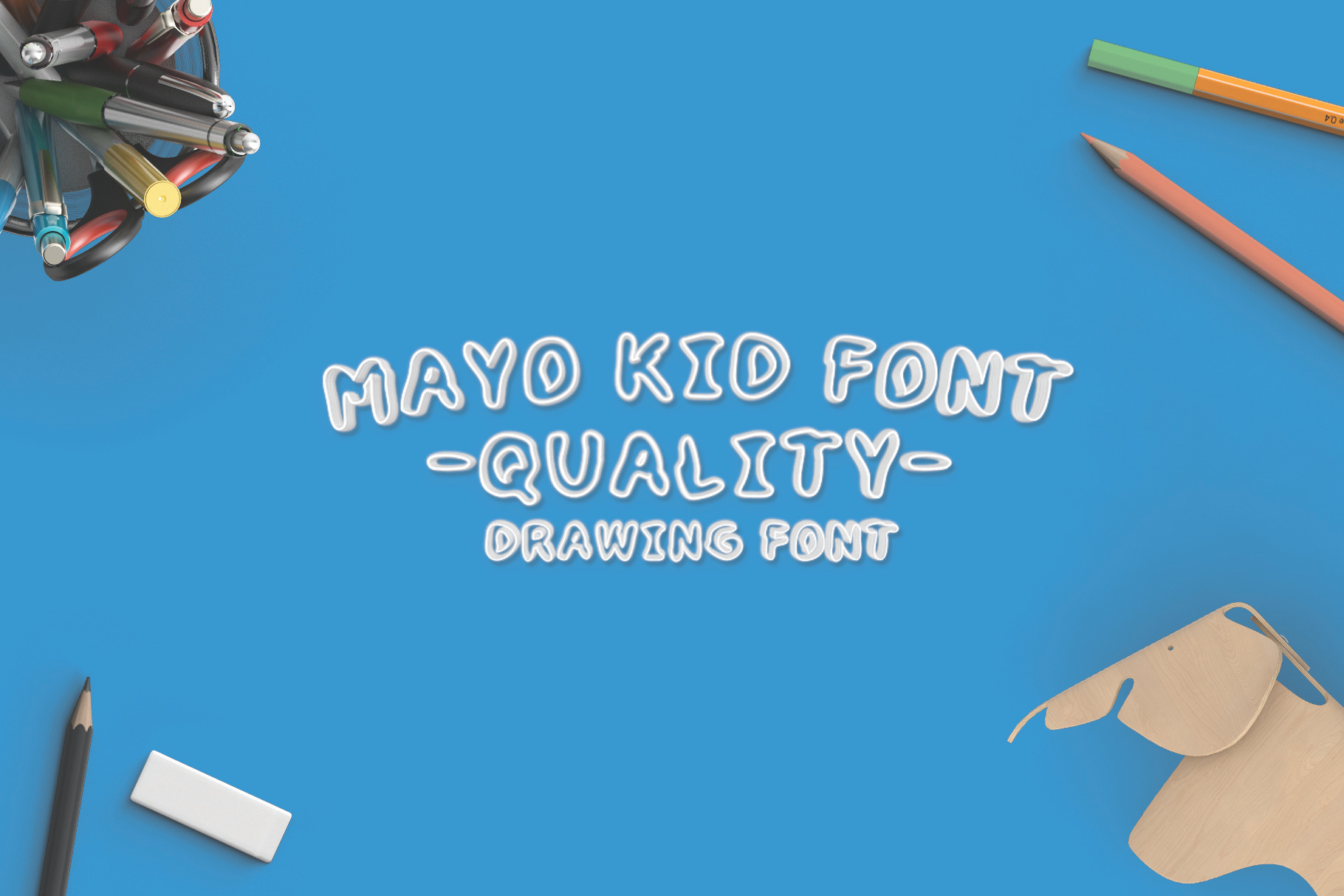
MayoKid Font
MayoKid Font is mayonnaise looking style. It 's perfect for food products, kid products, cards, posters, wall art, branding, diy projects, greeting cards, labels, quotes, packaging and much more.